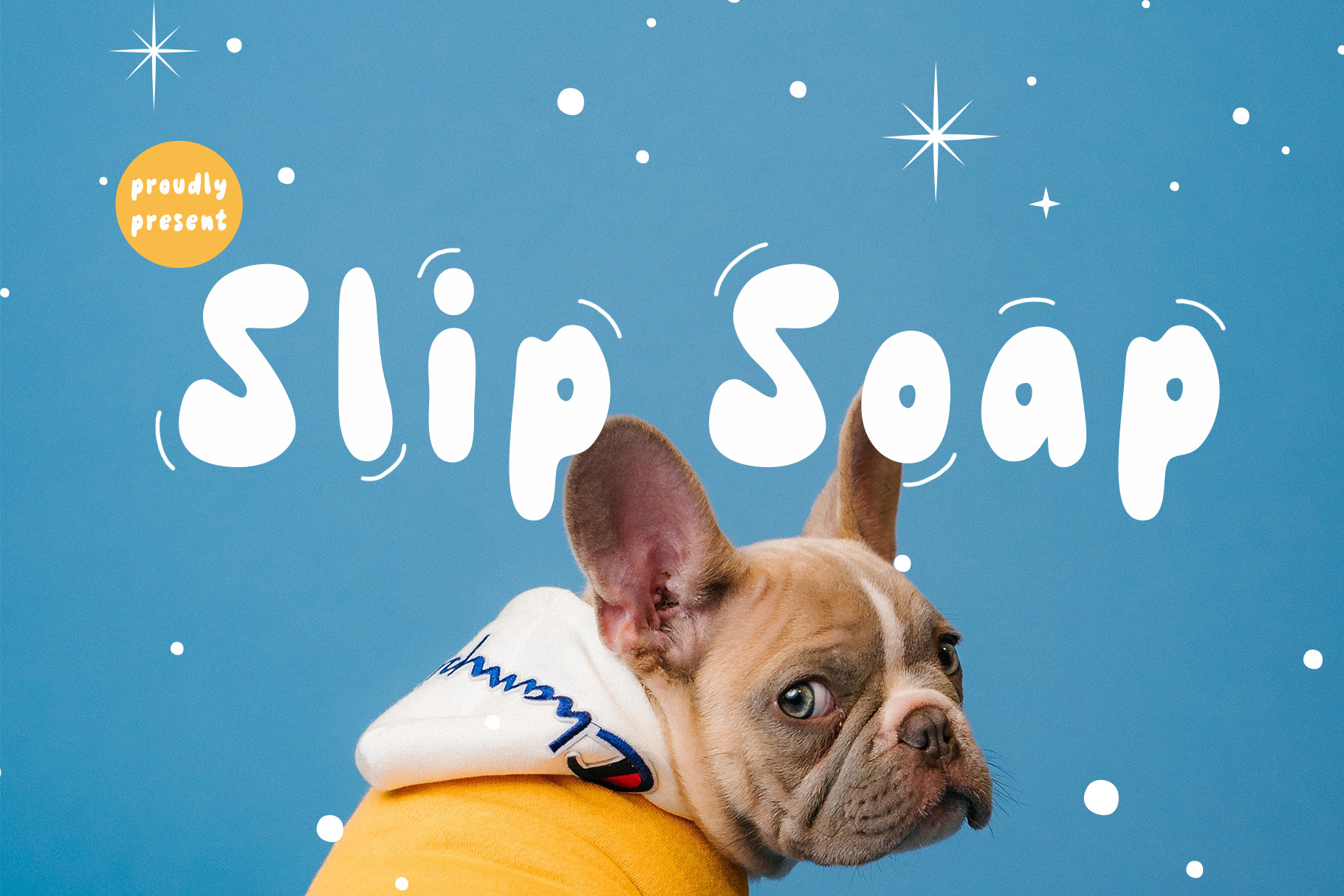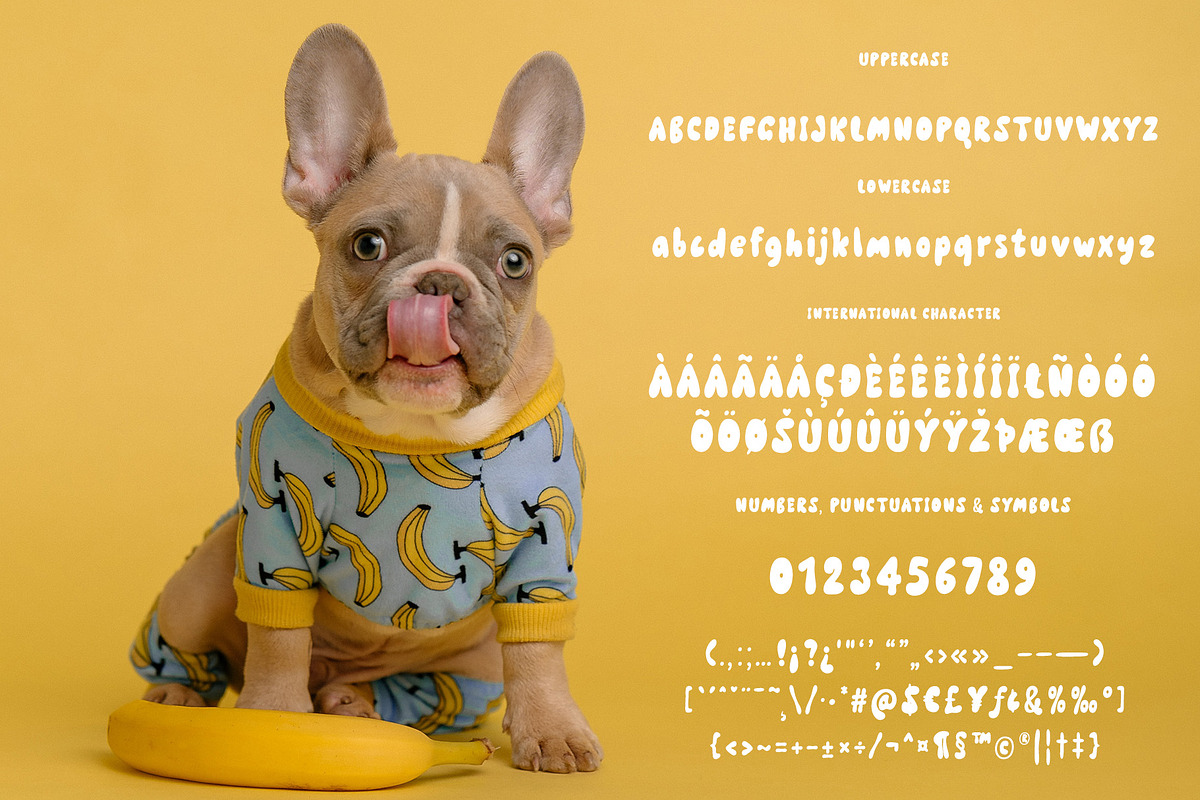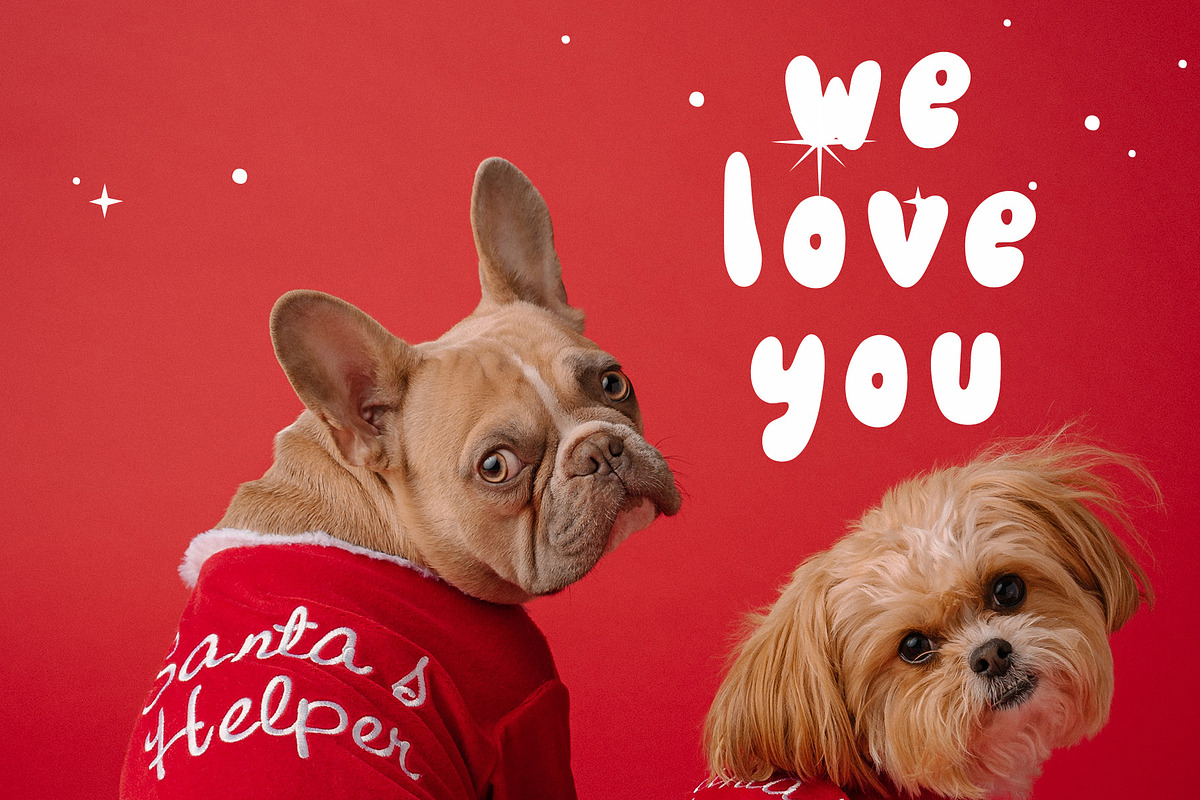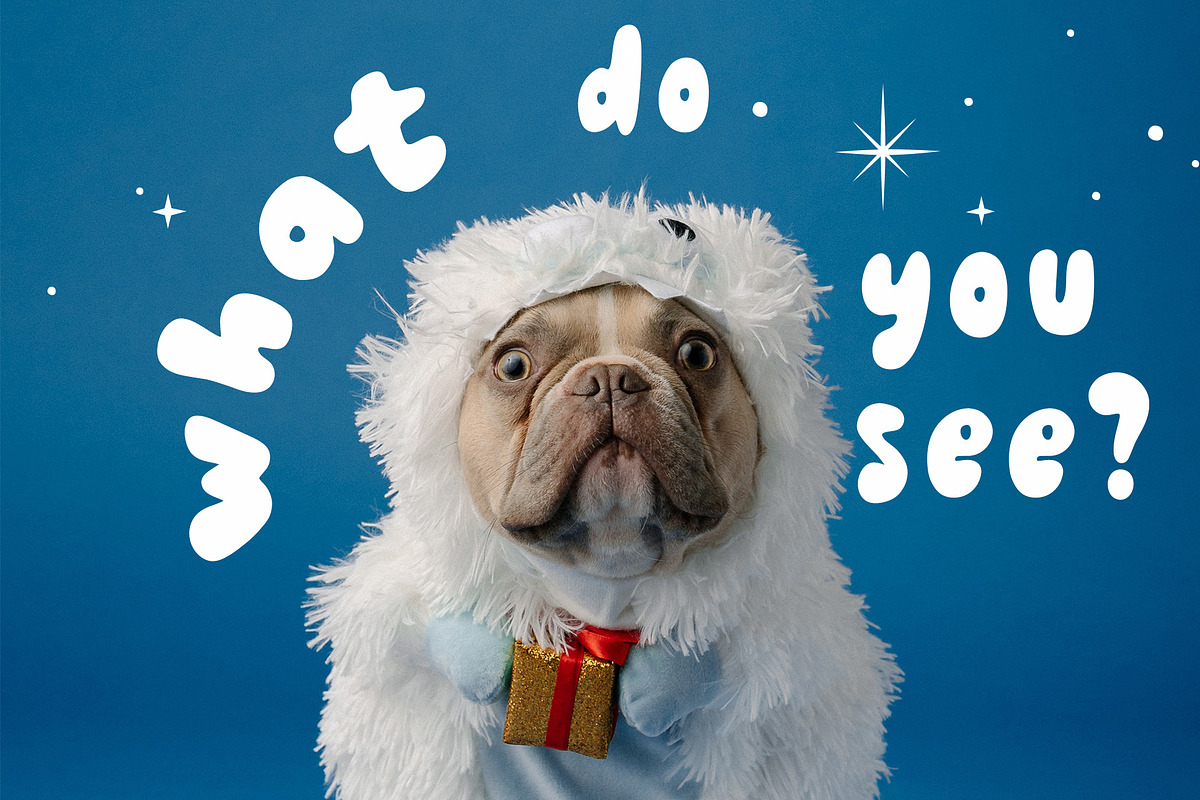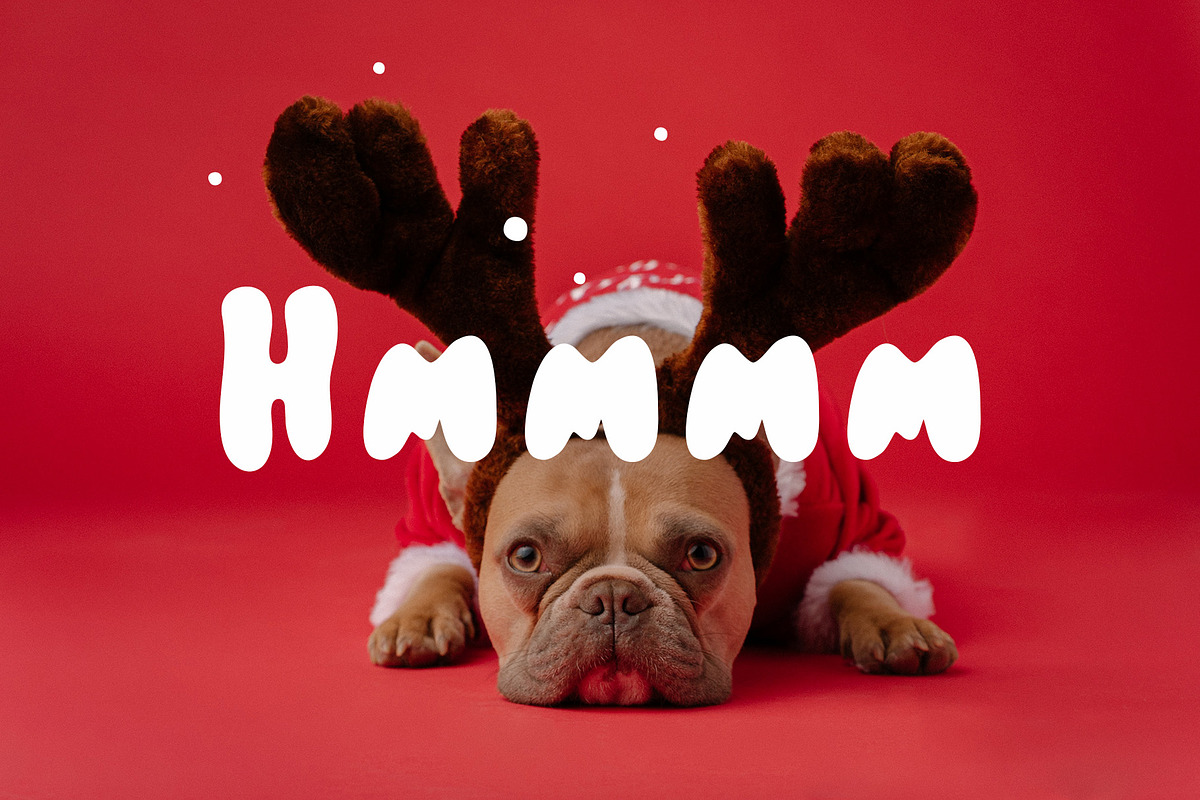
Slip Soap a Cute Display Font
Slip Soap is an adorable font featuring chubby characters that create a sweet and endearing impression. The font is designed with playful curves and a delightful appearance, adding a touch of cheerfulness to every design.
The creation of Slip Soap font was inspired by the desire to bring joy and happiness to design projects. Our goal was to create a font that could evoke warm and spirited feelings, reminiscent of carefree moments like childhood.
Each letter and character in the Slip Soap font is crafted with curved edges and plump shapes, giving it a cute and huggable quality. The font is intended to capture attention and touch the hearts of its audience.
Slip Soap is perfect for various design purposes, such as children's books, posters, invitations, and other projects that aim to create a pleasant and warm impression.
The development of this font was driven by the belief that, sometimes, in this fast-paced world, we all need moments to embrace the joy and innocence that comes from simple things like this chubby and endearing font.
With Slip Soap you can infuse a sense of wonder and childhood joy into your designs, making them more appealing and captivating to a wide range of audiences.
In the midst of a world that can sometimes feel serious and demanding, Slip Soap reminds us to take a step back, embrace happiness in the little things, and spread joy through designs that are adorable and heartwarming.